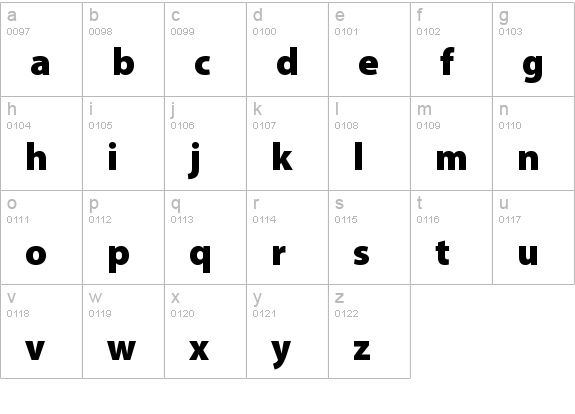
Myriad Pro Black SemiCondensed is a maximum-weight, dramatic variant in the Myriad typeface family \xE2\x80\x94 well suited to maximum-impact headlines, posters, and packaging.
Myriad Pro Black SemiCondensed is a sleek and modern font that exudes professionalism and sophistication. With its bold and condensed design, this typeface commands attention and makes a strong visual impact in any project. The sharp edges and clean lines of Myriad Pro Black SemiCondensed give it a contemporary look that is perfect for headlines, titles, and branding materials. Best of all, Myriad Pro Black SemiCondensed is freely available to download at FontsMarket.com. This means that you can easily access this high-quality font to elevate your designs without any cost. Whether you're working on a website, marketing materials, or any other creative project, Myriad Pro Black SemiCondensed is a versatile and stylish font choice that will help you stand out from the crowd.